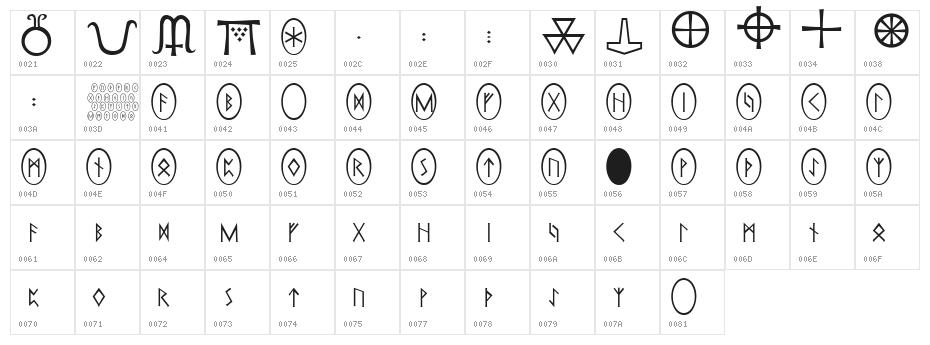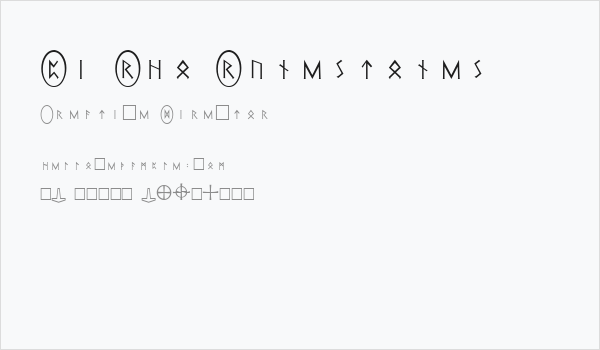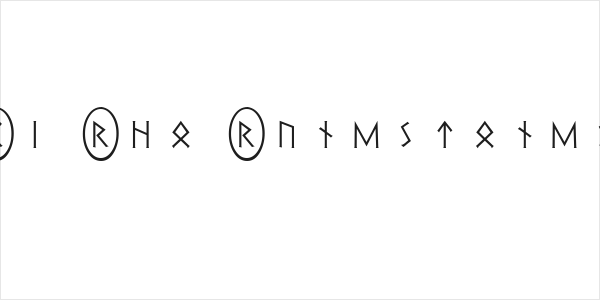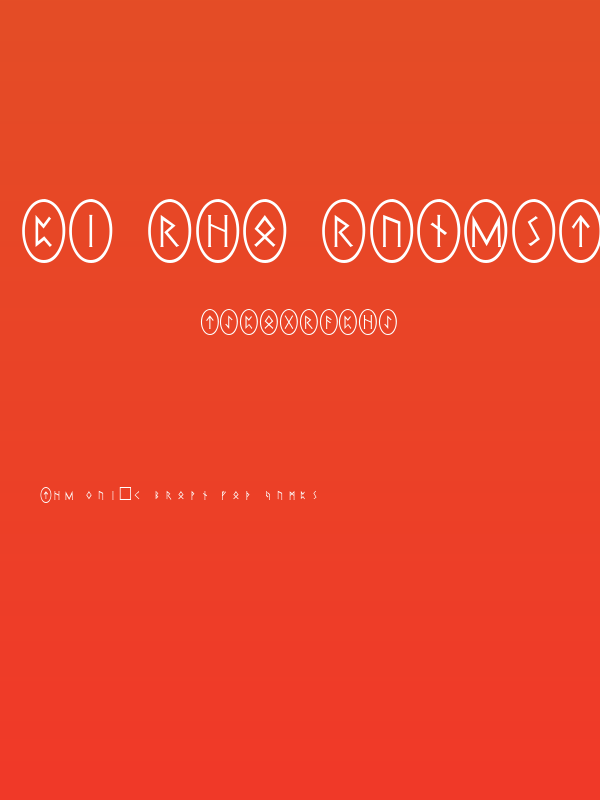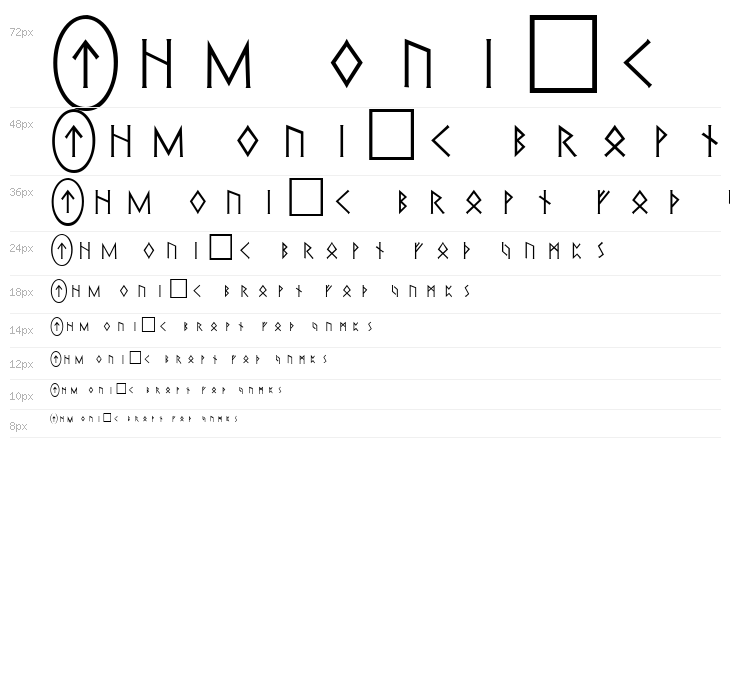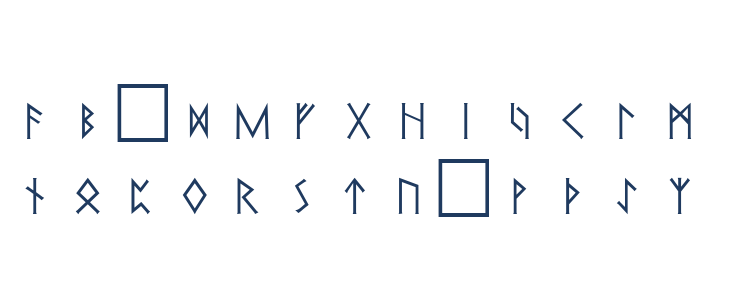
Pi Rho Runestones Font
Pi Rho Runestones Description
This font is inspired by ancient runic alphabets, featuring characters that resemble traditional runestones. Each letter is encased in an oval or square, giving it a distinct and historical appearance. The style is bold and geometric, with sharp angles and straight lines that evoke a sense of mystery and antiquity. The characters are evenly spaced, providing a balanced and uniform look. The font includes a variety of symbols and special characters, enhancing its versatility for creative projects. Its unique design makes it suitable for themes related to history, fantasy, or mythology.
| Use Case | Logos, Headlines |
| Proposed Projects | Ideal for fantasy book covers, historical themed posters, or video game graphics. |